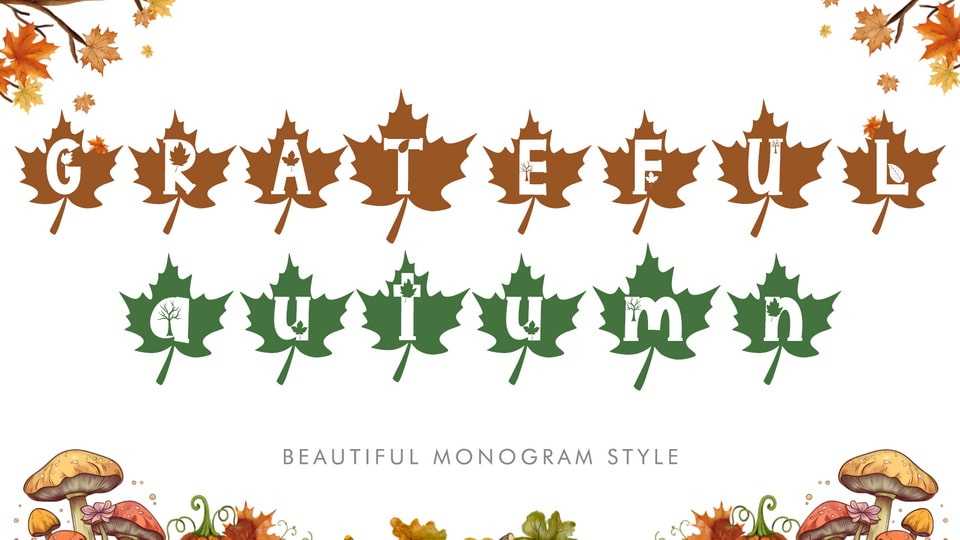
Download Grateful Autumn font, a unique and beautiful autumn monogram typeface. It’s perfect for logos, Christmas, fall, and autumn, stickers, banners, branding, prints, Halloween.